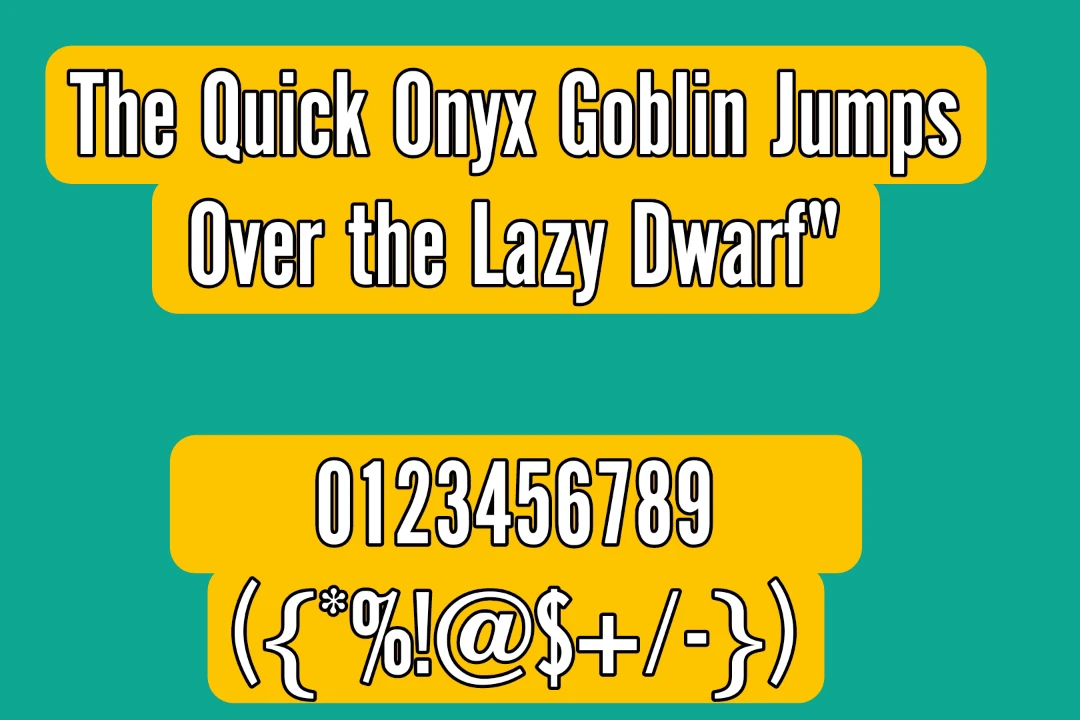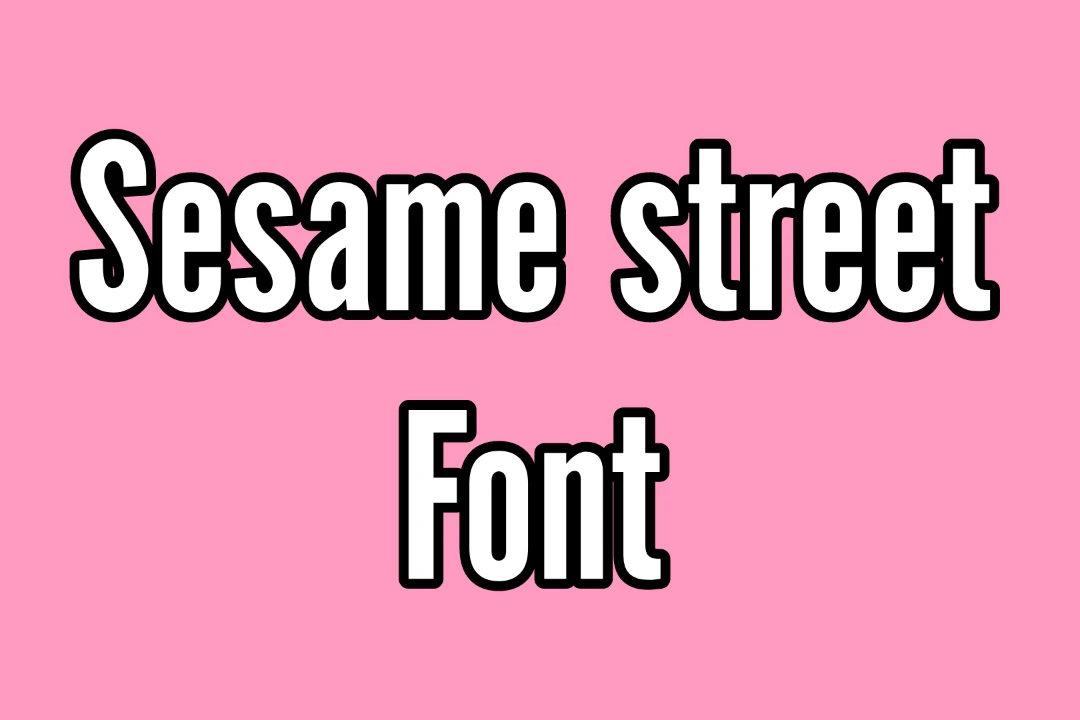
Sesame Street Font Free Download is a highly searched keyword by designers who want a fun and playful style for kids’ projects. Inspired by the famous Sesame Street, this font is perfect for cartoons, birthday designs, and colourful branding.
This typeface works great for creative projects in Canva, Adobe Illustrator, and Adobe Photoshop, especially when paired with bright colours and bold layouts.
Designers often search for Sesame Street font pairing ideas and online generator tools to preview text before downloading. It is widely used in kids’ thumbnails, YouTube banners, and school projects because of its friendly look.
Features and Styles of Sesame Street Font
You can pair this interesting texture easily with the Open Sans Condensed font; these two fonts will give an eye-catching look to your designs due to their neat and clean texture.
Some of the popular styles and versions related to this font include:
- Sesame Street Bold
- Sesame Street Compressed
- Sesame Street Regular
- Sesame Street Light
Sesame Street Font View
Below is a preview of the Sesame Street texture in action.
| Designer | Tobias Frere-Jones |
| Style | Sans Serif |